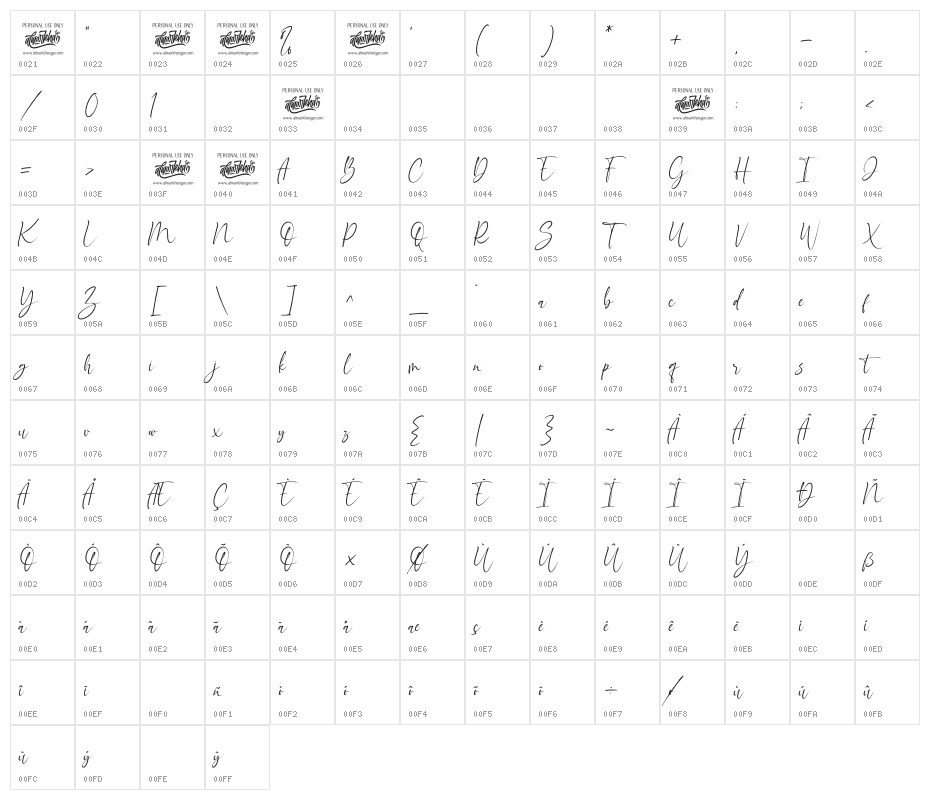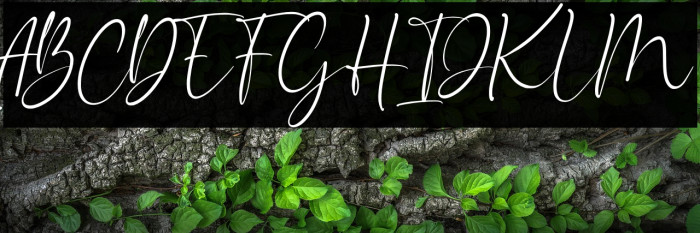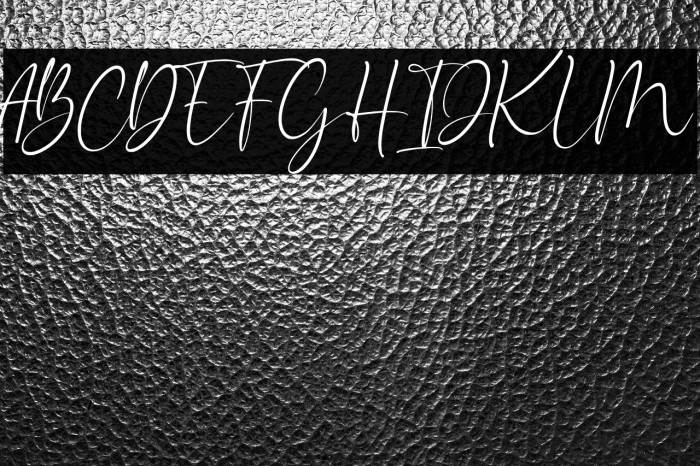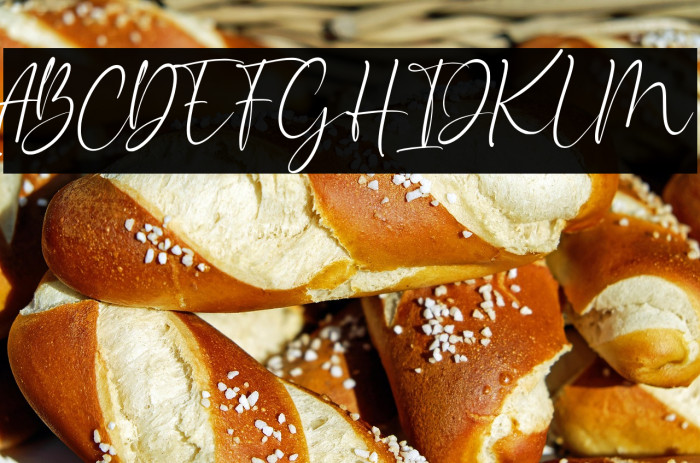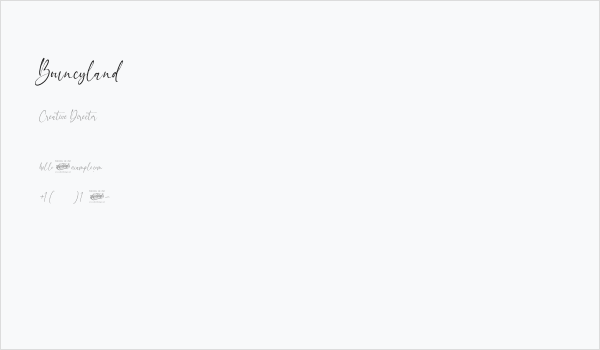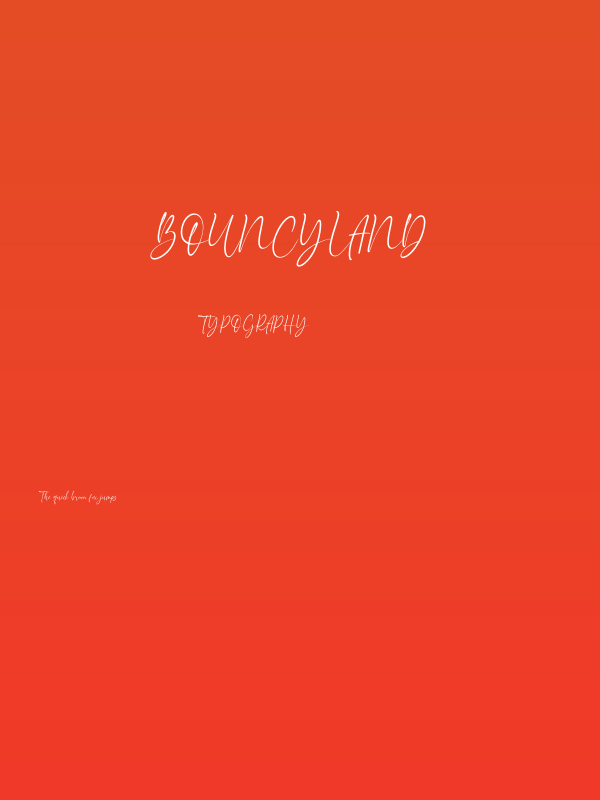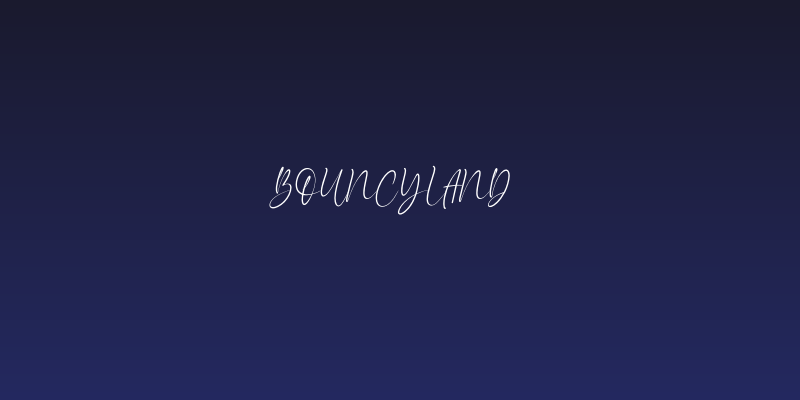
Bouncyland Font
Bouncyland Description
This font features an elegant, flowing script style with a handwritten appearance. The letters are connected, creating a sense of continuity and fluidity. The uppercase letters are tall and slightly slanted, while the lowercase letters maintain a consistent baseline with varying heights. The strokes are smooth and curvilinear, giving the font a graceful and sophisticated look. The numerals and special characters are designed to complement the overall style, maintaining the same fluidity and elegance. This font is suitable for projects that require a personal touch or a sense of elegance.
| Overall Style | Elegant, Handwritten |
| Use Case | Logos, Invitations, Personal branding |
| Proposed Projects | Wedding invitations, greeting cards, personal branding, and elegant logos. |